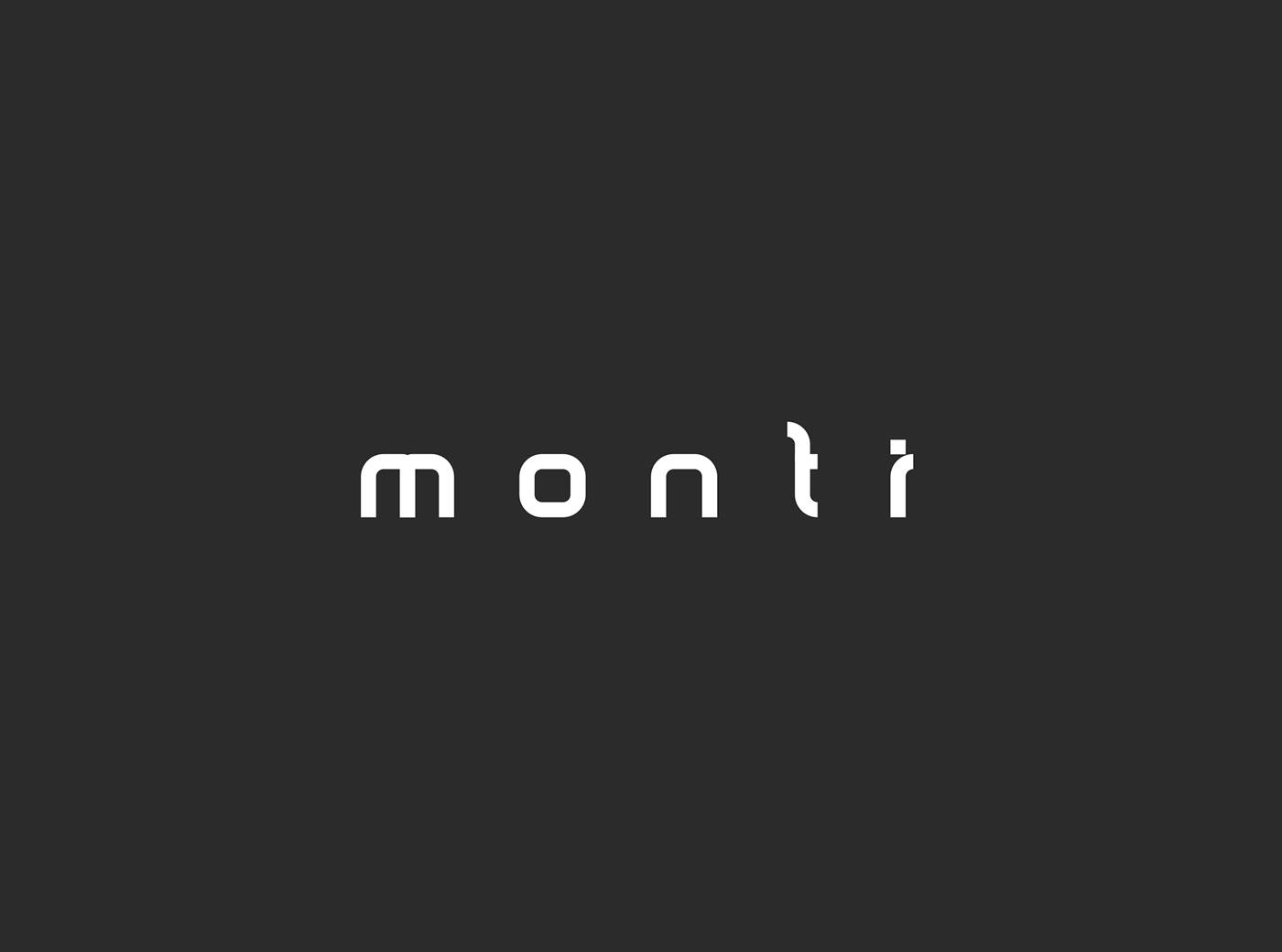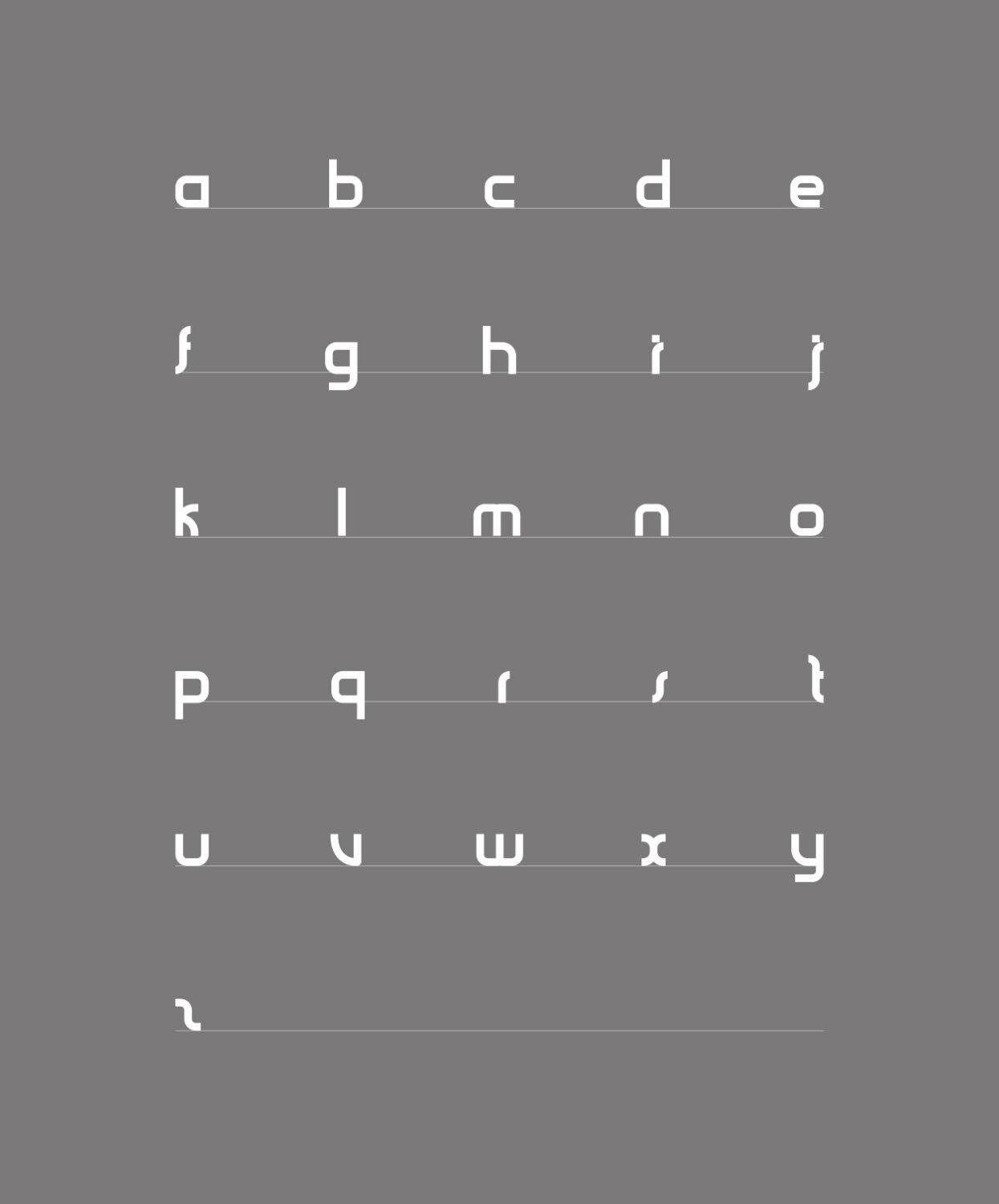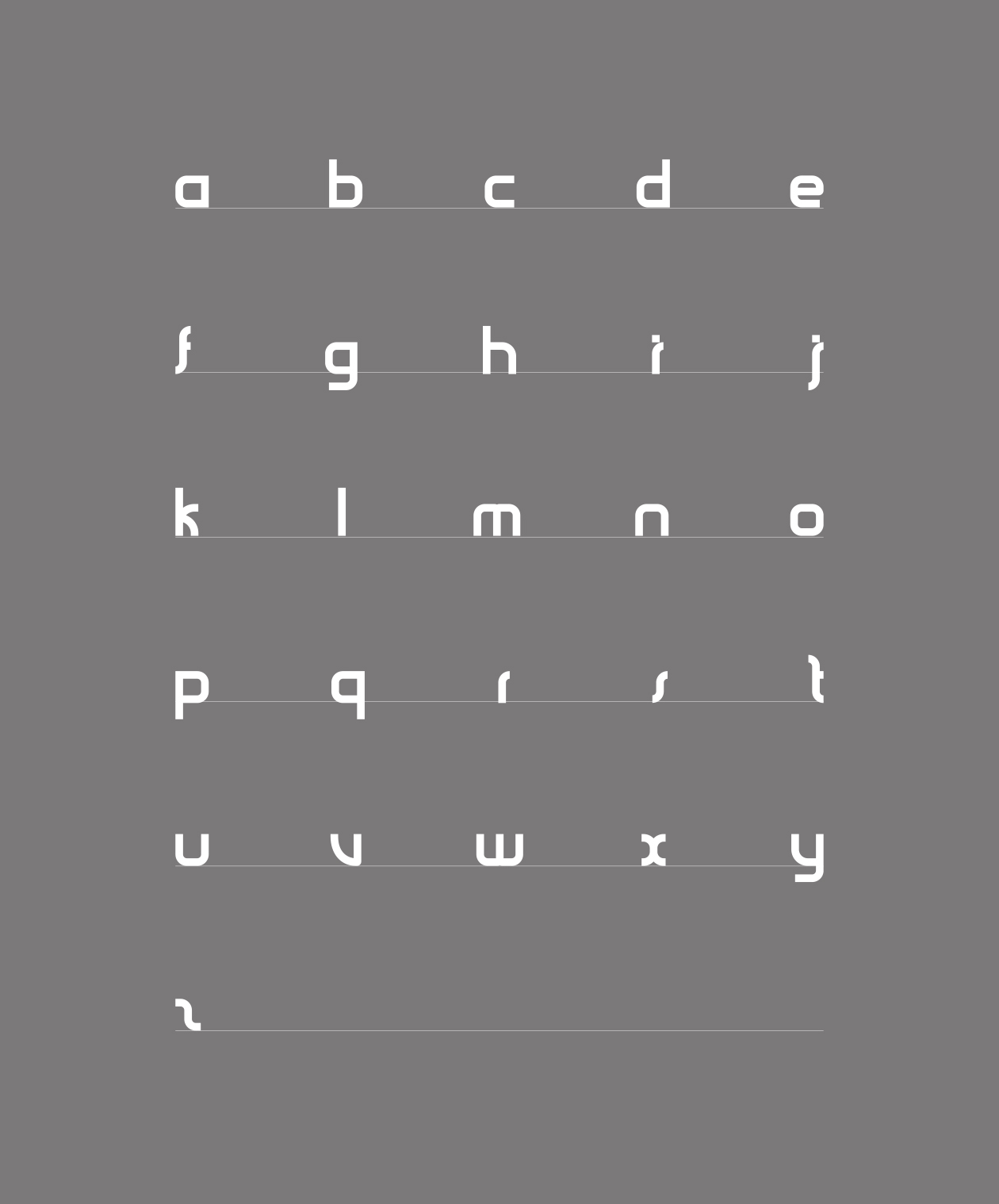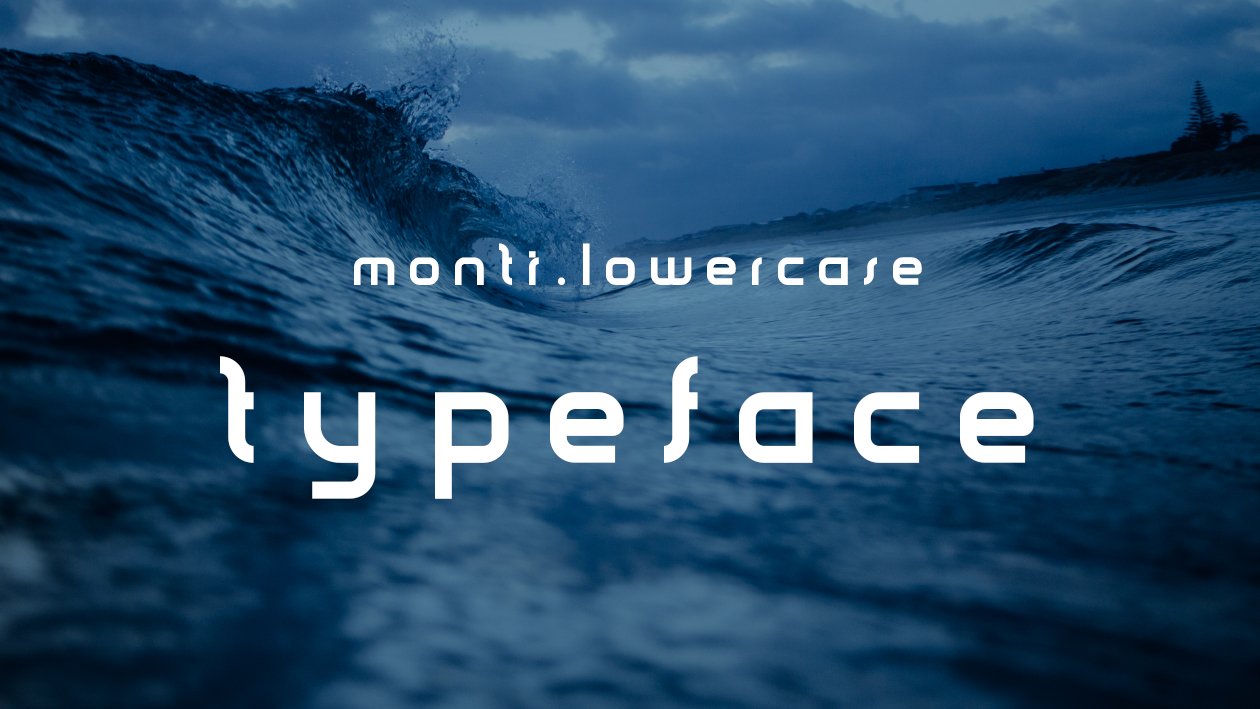
Monti Minimal is a modern, geometric sans serif font characterized by its clean, smooth lines and distinct minimalistic style. With a regular weight and compact width, it features uniquely shaped letterforms that give it a futuristic and tech-savvy personality, making it ideal for contemporary branding, digital interfaces, and stylish editorial projects. Its sleek, legible design works well both in headlines and short text, conveying a sense of innovation and sophistication.
Monti Minimal Typeface
About Monti Minimal Typeface